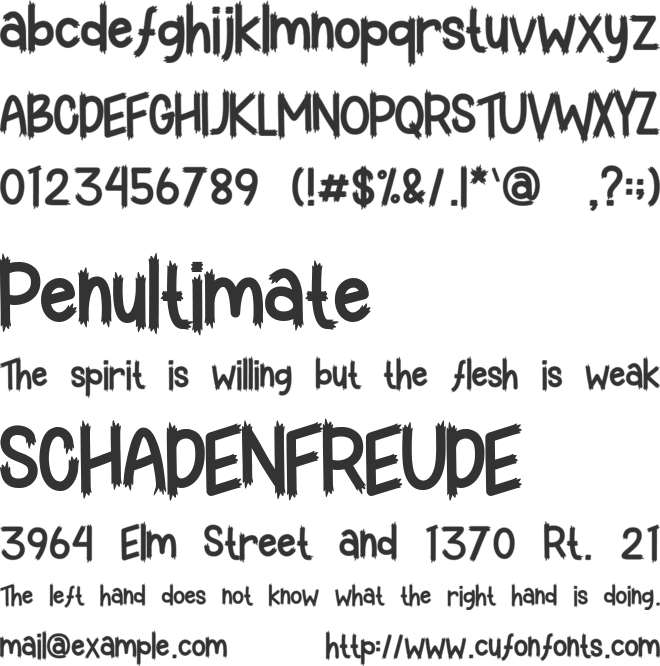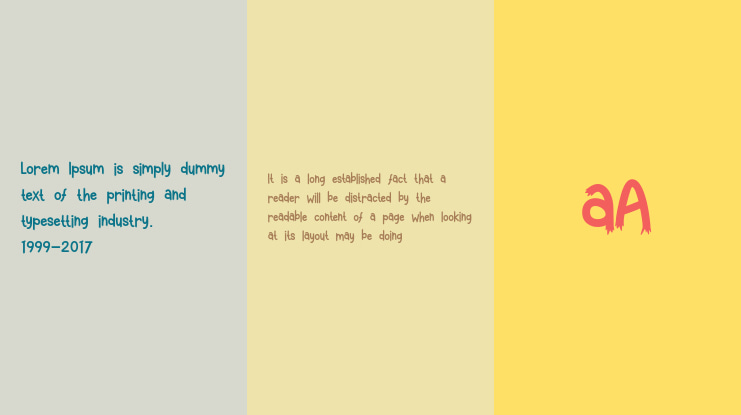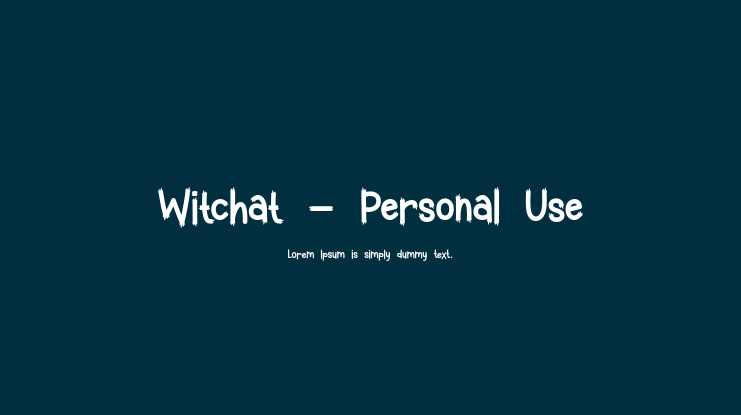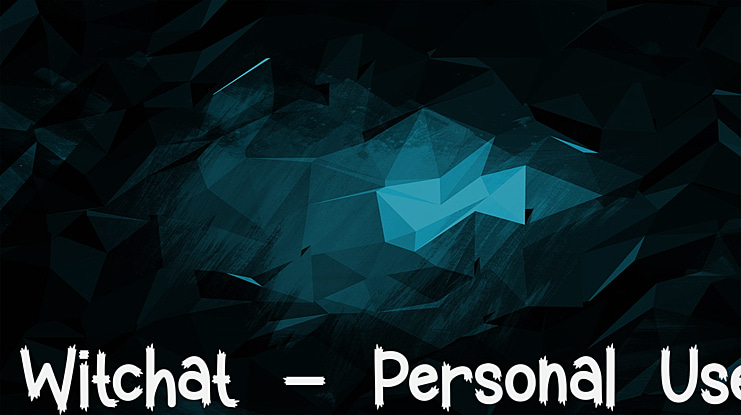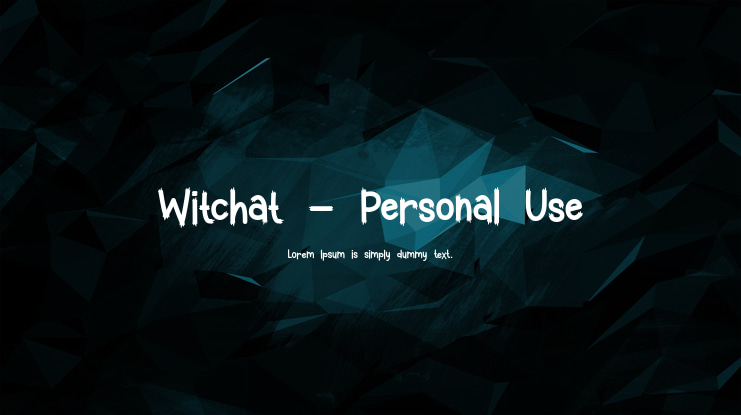
Witchat - Personal Use Font
Witchat is a cool and spooky display font. It is perfectly suitable for any Halloween-related project or crafty idea! The only limit is your imagination.